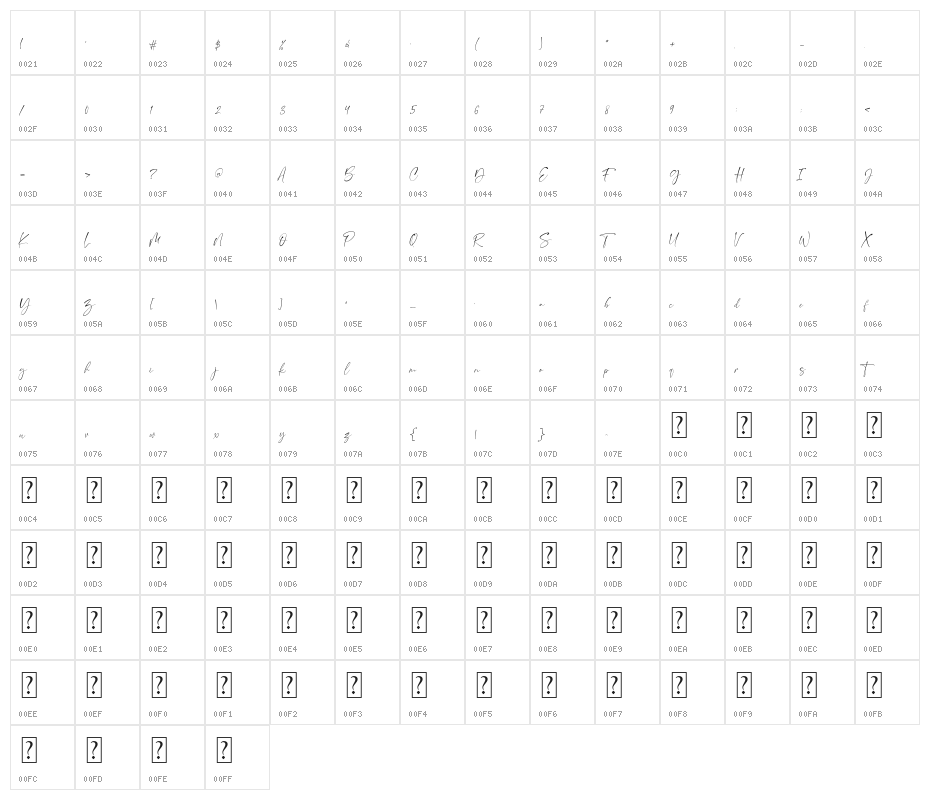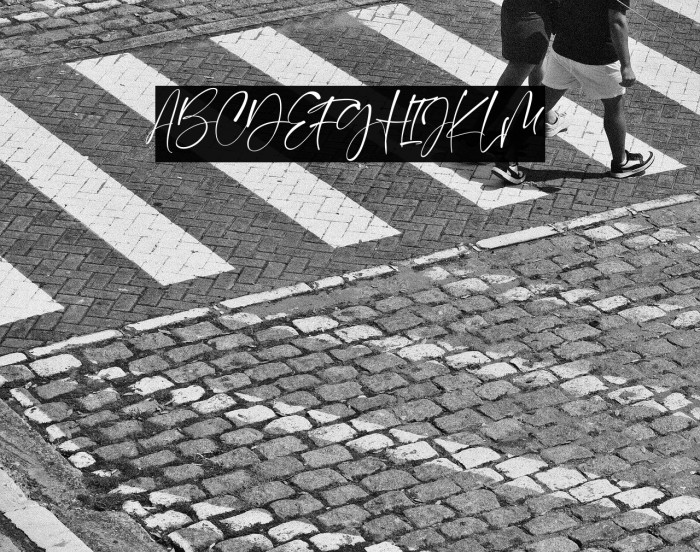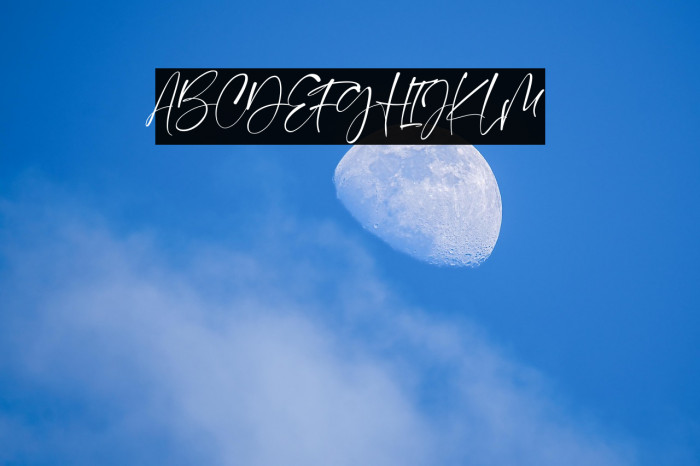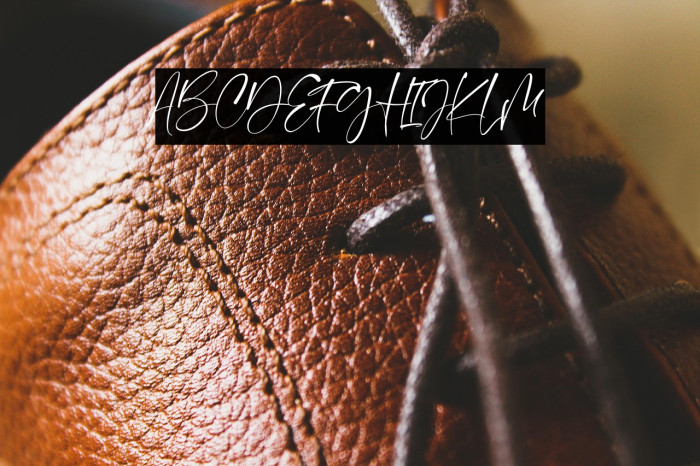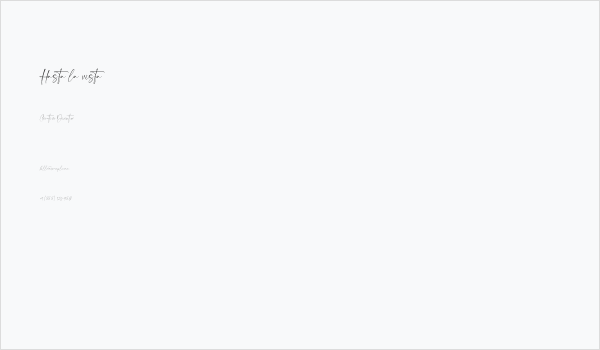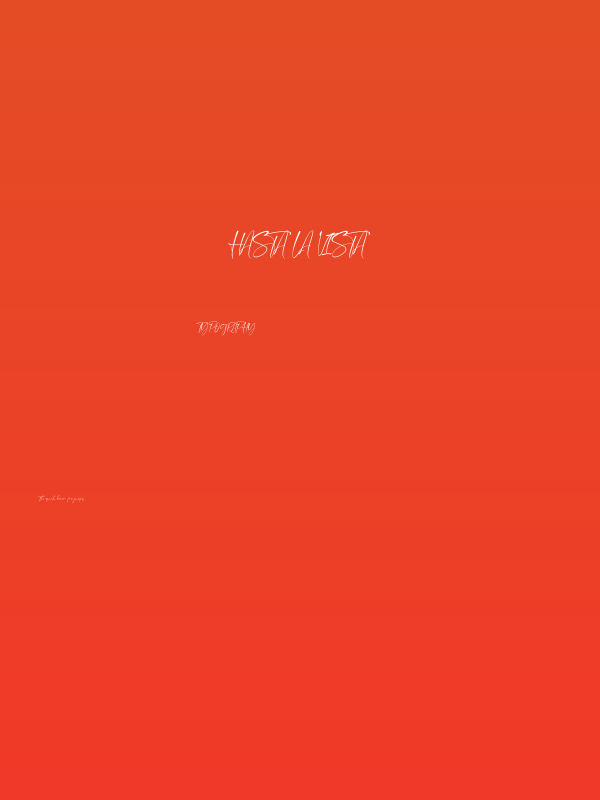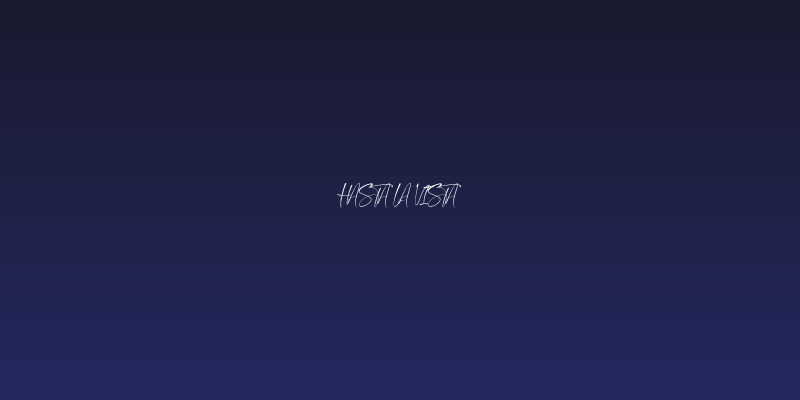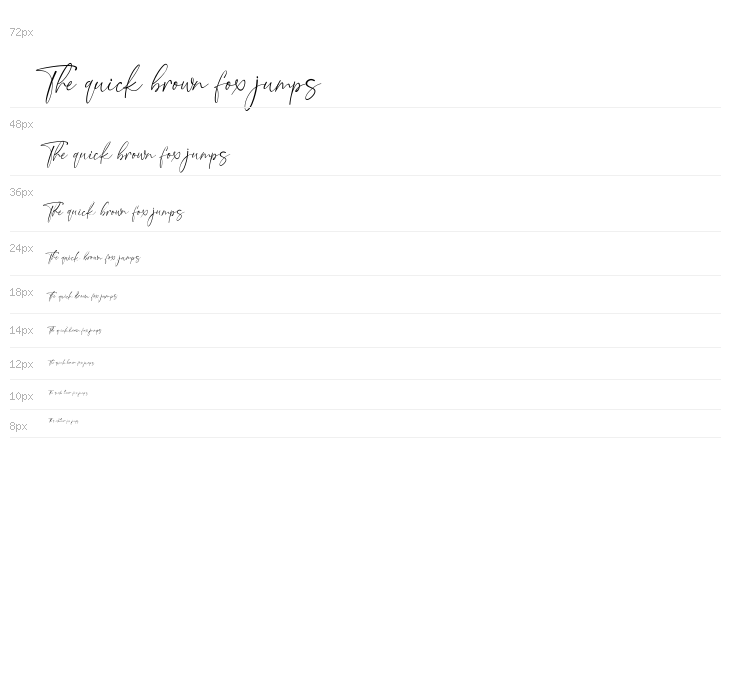
Hasta la vista Font
Hasta la vista Description
This font exudes a modern and elegant handwritten style, characterized by its fluid and cursive letterforms. The strokes are smooth and connected, giving it a natural and personal touch. The uppercase letters are slightly more elaborate, with some featuring unique flourishes that add a touch of sophistication. The lowercase letters maintain a consistent flow, enhancing readability while retaining an artistic flair. Numbers and special characters are designed to match the overall aesthetic, ensuring a cohesive look across all text elements. This font is perfect for projects that require a personal or artistic touch, such as invitations, greeting cards, or branding materials.